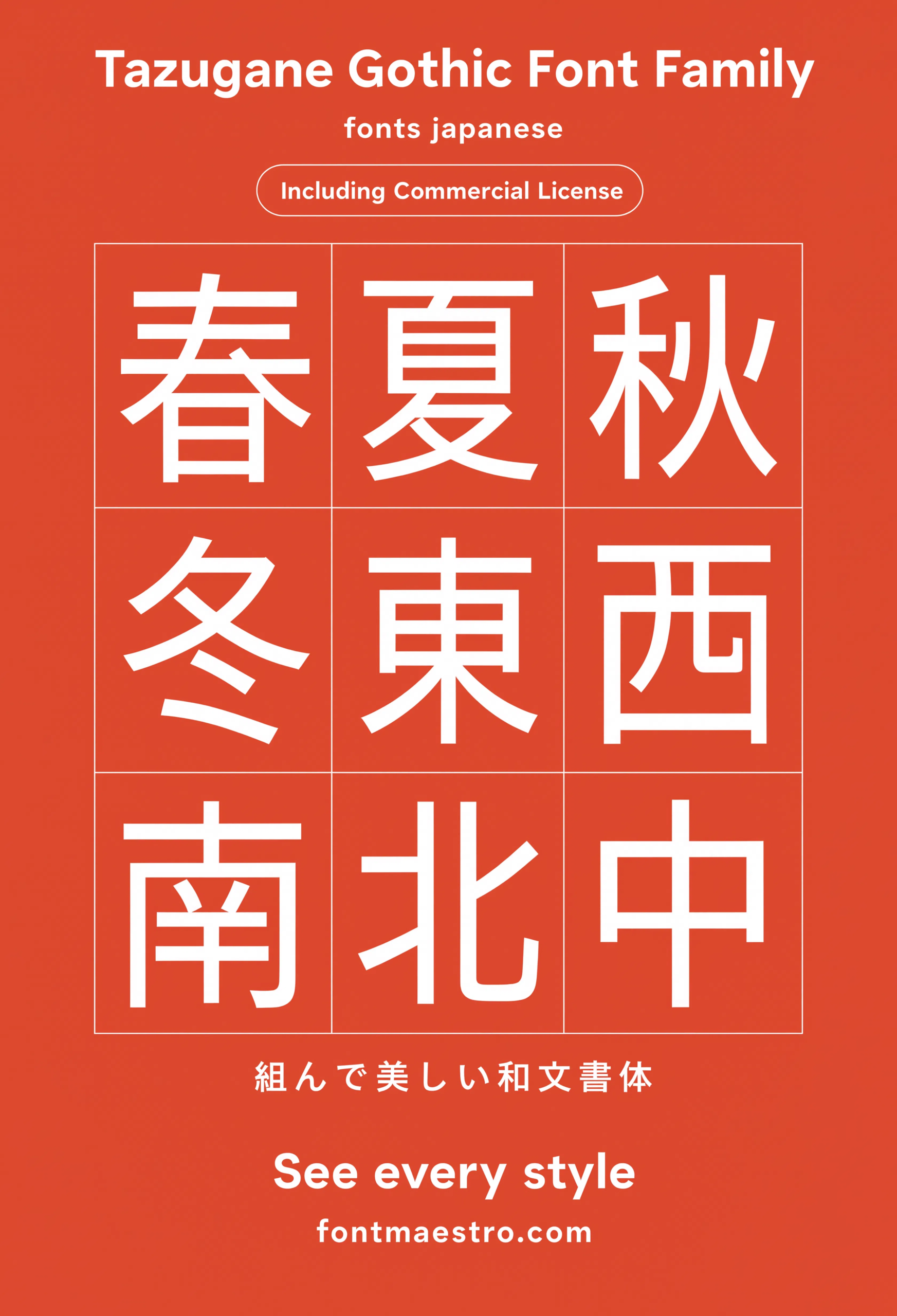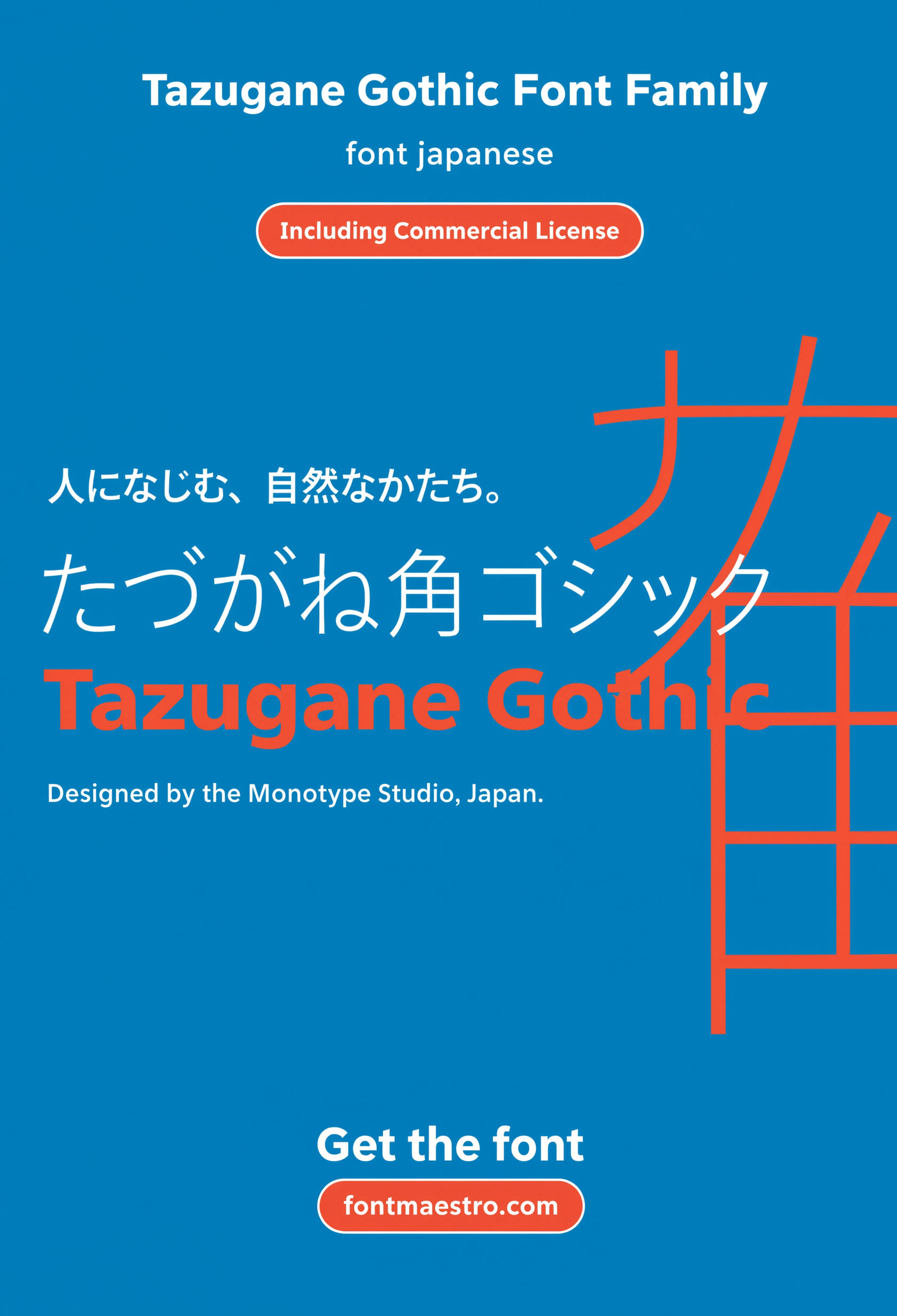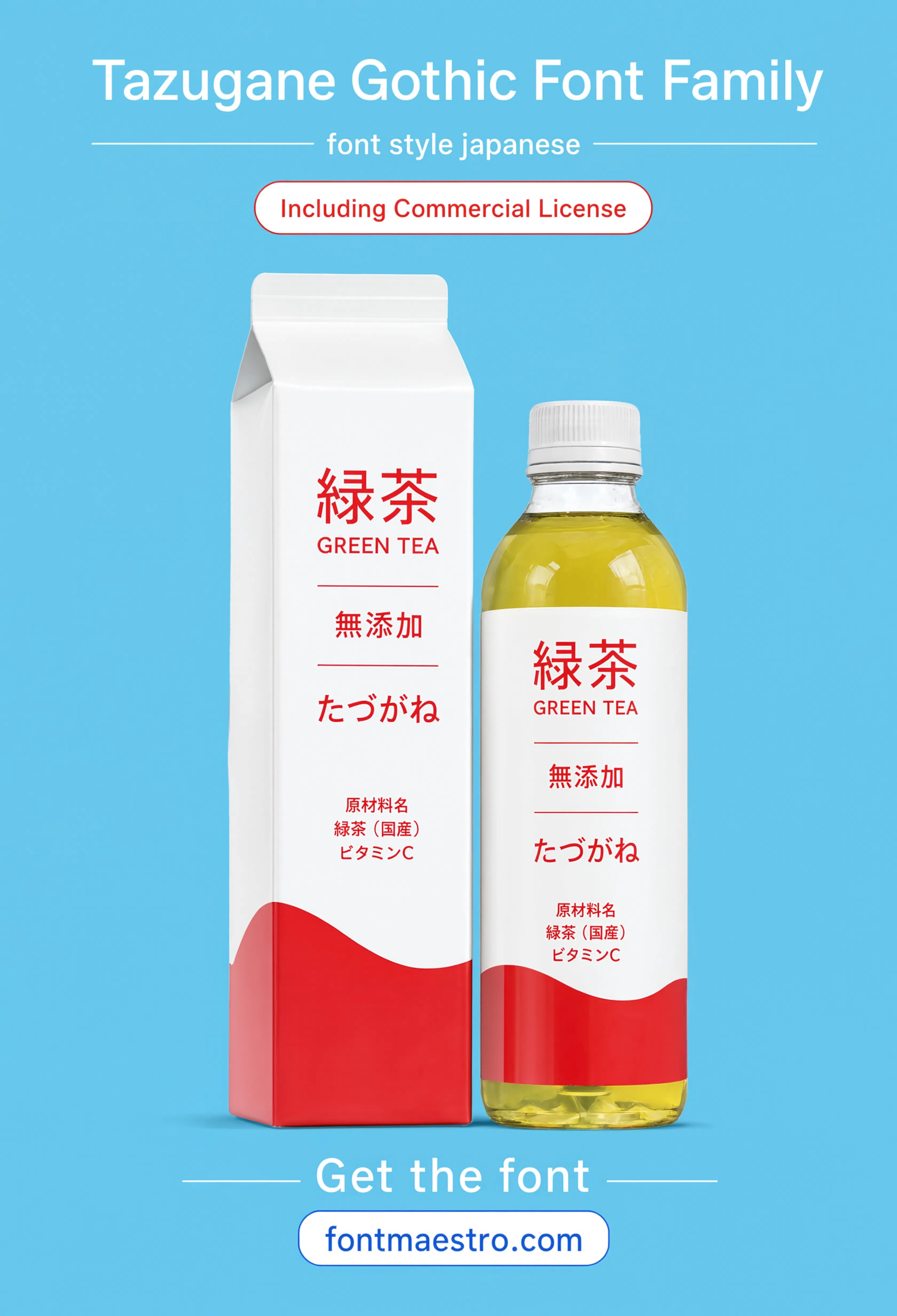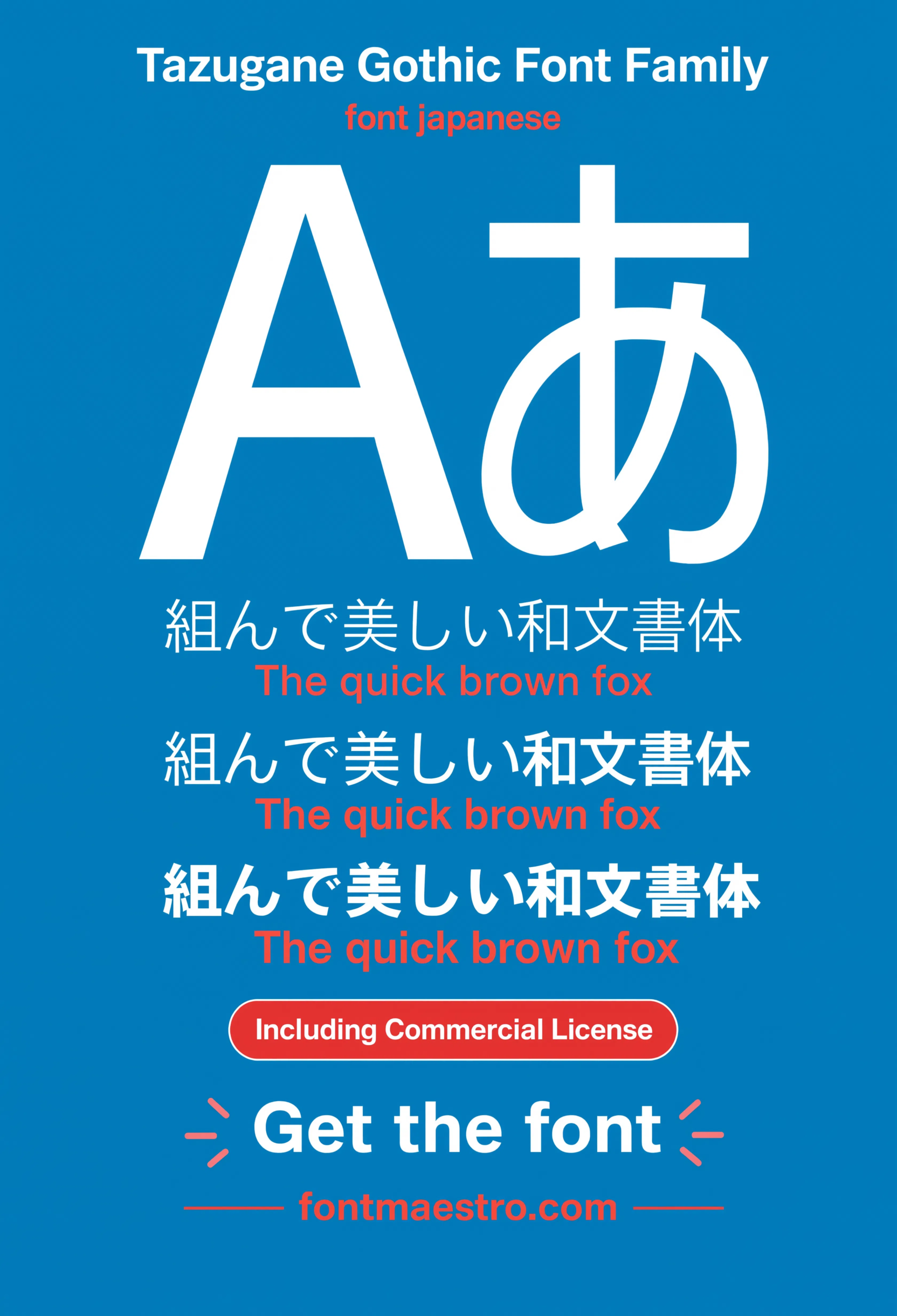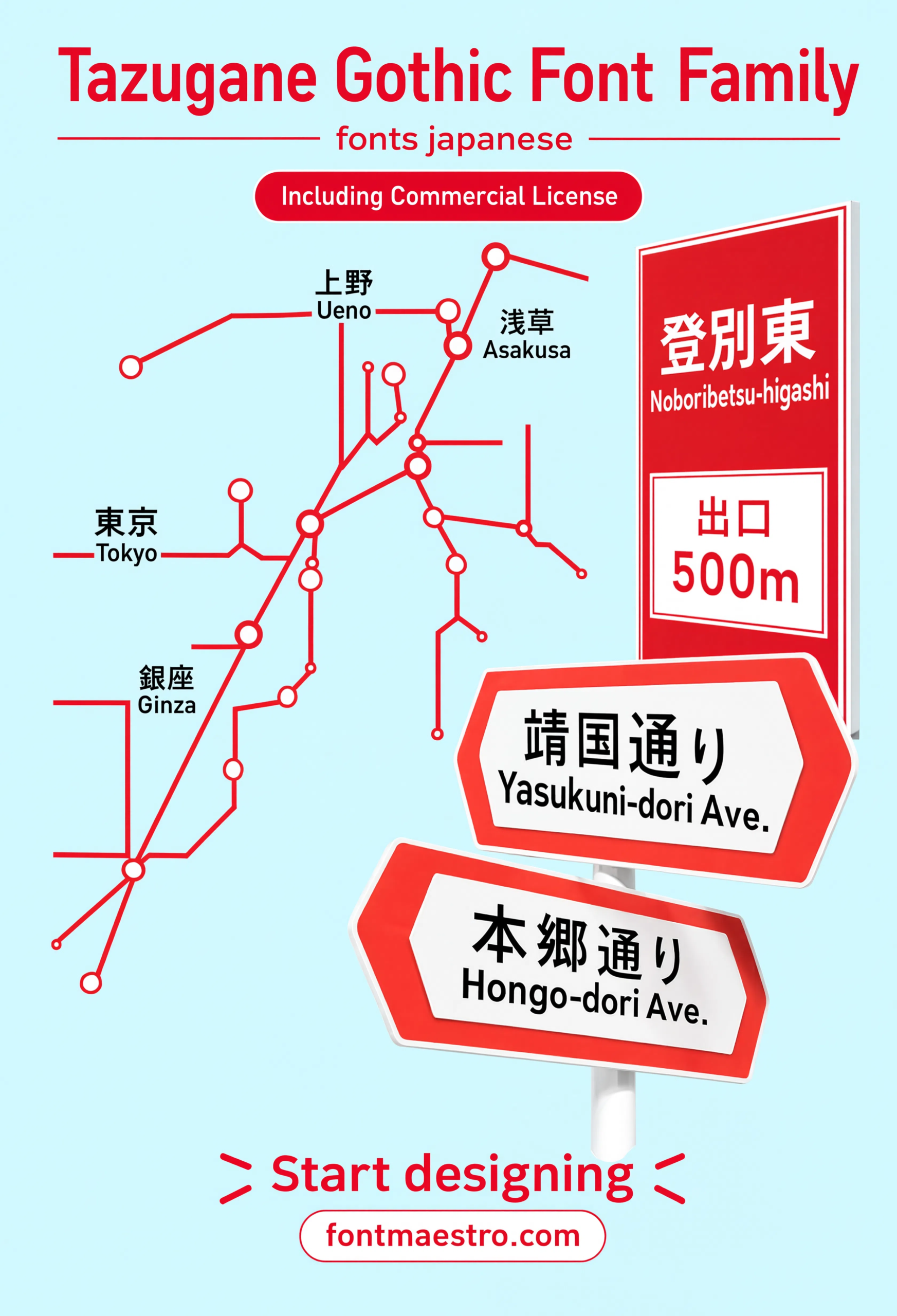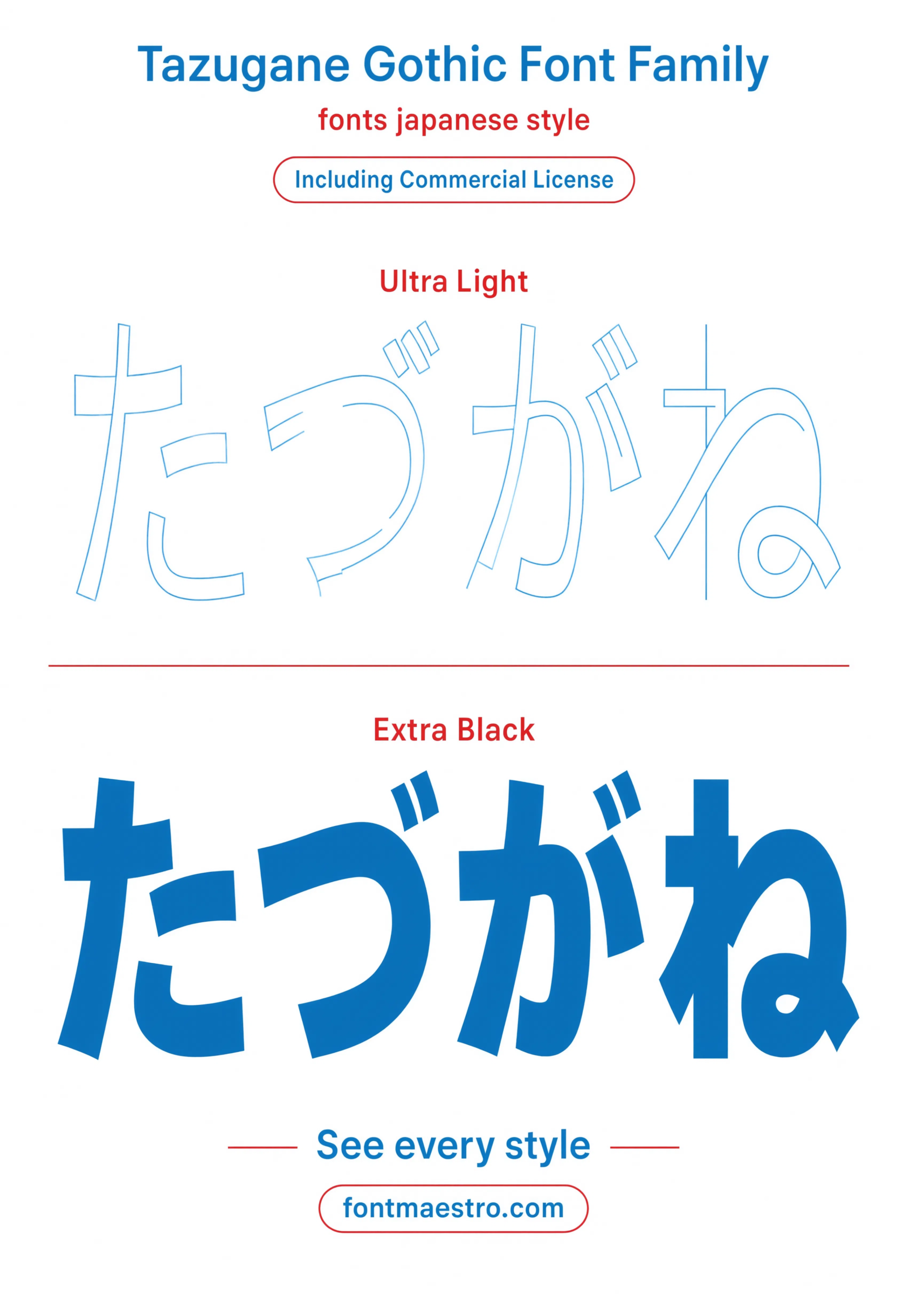
Font Japanese: The Bilingual Type System Built for Signage That Doesn’t Clash
Most Latin sans-serif fonts fall apart the moment they’re paired with kanji — the stroke weights don’t match, and the whole layout looks like two different typefaces got stapled together. Tazugane Gothic was built to solve exactly that problem: a genuinely unified Japanese font system where the Latin and Japanese glyphs share the same design DNA.
That matching isn’t cosmetic. It’s the difference between a bilingual poster that reads as one coherent piece of design and one that reads as a patch job.
Quick answer: Tazugane Gothic is a Japanese font family designed with matching Latin and kana/kanji weights, built for signage, transit systems, and editorial layouts that need Japanese and Latin text to sit together without a visual seam.
Why Do Most Japanese Fonts Look Mismatched Next to Latin Text?
Because they’re usually designed separately. A studio picks a Latin grotesque for the English copy, then bolts on whatever Japanese font happens to be licensed nearby — and the stroke contrast, x-height, and weight almost never line up. Kanji has far more visual density per character than Latin letters, so a “Regular” weight in one script can look noticeably heavier or lighter than “Regular” in the other.
The Aa specimen below shows what happens when both scripts are drawn by the same hand instead: the kana strokes and the Latin letterforms share the same terminal treatment and weight distribution, so nothing fights for attention.
Where Does a Unified Japanese Font Actually Earn Its Keep?
• Transit and wayfinding signage — station names in kanji next to romanized text need identical legibility at a glance, not a font mismatch competing for the eye.
• Packaging with bilingual labeling — ingredient lists and brand names side by side read as one system instead of two typefaces stitched together.
• Editorial layouts — magazine spreads mixing Japanese body copy with English pull quotes hold a consistent rhythm down the page.
• Large-format kanji display — at poster scale, uneven stroke weight becomes obvious fast; a matched system avoids that.
Hero Specimen
The family at display scale — the fastest way to see how closely the Latin and kana weights actually track each other.
font japanese Tazugane Gothic hero specimen
Aa Specimen
Latin and kana glyphs set side by side — check here for the shared terminal treatment that keeps the two scripts from clashing.
font japanese Tazugane Gothic Aa specimen
Transit Map Application
Set into a transit map layout — the exact bilingual signage context this family was built to handle.
font japanese Tazugane Gothic transit map
How Many Weights Does Tazugane Gothic Actually Need?
More than most Latin-only families, because kanji density changes how a weight reads. A “Thin” kanji character can still look visually heavier than a “Regular” Latin letter sitting next to it, so a wide weight range gives a designer room to actually balance the two scripts rather than settle for whatever the default pairing gives them.
The packaging application below is a useful stress test — small-size bilingual ingredient text next to a larger brand name in kanji, both needing to stay legible without one script visually overpowering the other.
Kanji Glyph Grid
A full glyph grid laid out clean — useful for checking stroke consistency across a large character set before committing to a project.
font japanese Tazugane Gothic kanji glyph grid
Packaging Application
Applied to a bilingual packaging layout — a real check for how the weights hold up next to small-size ingredient text.
font japanese Tazugane Gothic packaging design
Weight Comparison
Thin versus black side by side — worth checking before picking a weight for dense bilingual text blocks.
font japanese Tazugane Gothic weight comparison
• Kanji density means a lighter weight can still read heavier than expected — check both scripts together, not separately.
• Transit signage and bilingual packaging are the clearest stress tests for whether a Japanese font system actually holds up.